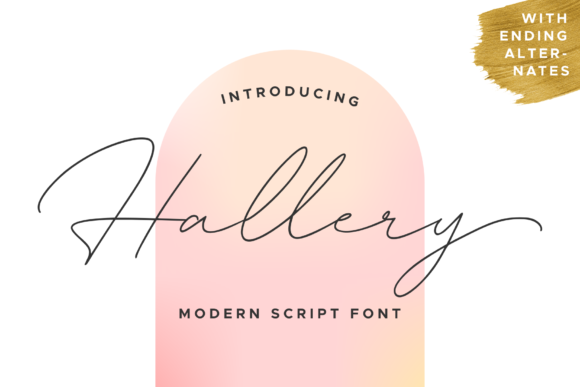
**Feast Your Eyes on Hallery: The Script Font that Will Captivate Your Heart**
Immerse yourself in the enchanting world of Hallery, a meticulously crafted script font that evokes a sense of timeless elegance. Its flowing curves and graceful strokes paint a captivating picture, making it an irresistible choice for those seeking a touch of allure and sophistication in their designs.
**A Versatile Gem for Every Creative Endeavor**
Hallery's versatility knows no bounds. Whether you're an artist, designer, or simply a lover of beautiful fonts, this masterpiece will elevate your creations to new heights. From eye-catching logos that make a bold statement to elegant business cards that exude professionalism, Hallery adapts seamlessly to your every need. Unleash your imagination and watch as your designs blossom with ethereal beauty.
**The Perfect Choice for Tattoos: A Canvas of Emotions**
If you're an artist seeking to immortalize emotions on skin, Hallery is your muse. Its enchanting swirls and flourishes capture the essence of profound sentiments, making it an ideal choice for heartfelt tattoos that tell a captivating story. Let your clients express themselves through this font, creating a lasting tribute to love, friendship, or cherished memories.
**A Font with a Heart: Inspired by the Power of Connection**
Behind the creation of Hallery lies a deep-seated desire to connect people through the art of lettering. Its designer, Carpiola Studio, poured their passion into every stroke, crafting a font that speaks to the human spirit. With Hallery, you have the power to forge emotional bonds, create meaningful messages, and leave an everlasting impression on the hearts of those who behold it.
**Unlock the Power of Hallery: A Font that Ignites Creativity**
Embark on a creative journey with Hallery, a font that will ignite your imagination and empower you to create designs that resonate with your audience. Its PUA encoding grants you effortless access to a treasure trove of glyphs and swashes, giving you the freedom to unleash your artistry and bring your visions to life.
Experience the magic of Hallery today and discover a font that will transform your creative endeavors into captivating masterpieces. Let its timeless beauty elevate your designs and create an unforgettable impact that will leave a lasting legacy for years to come.